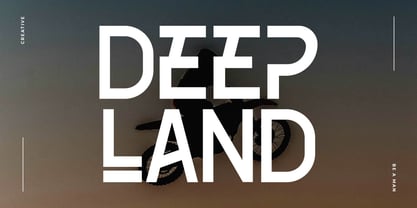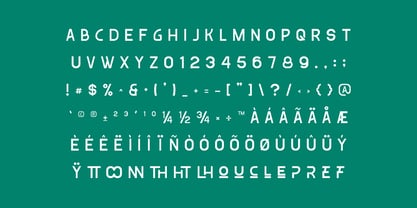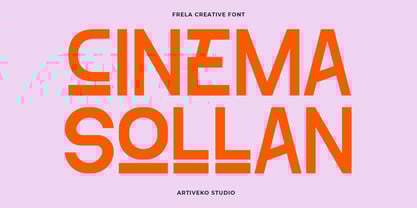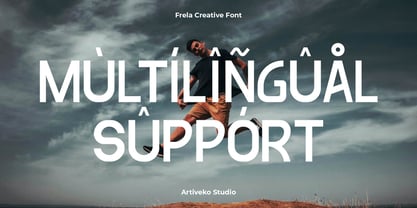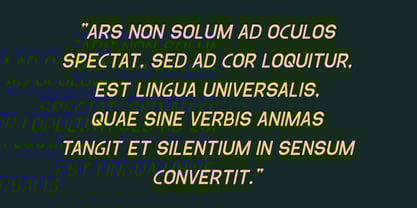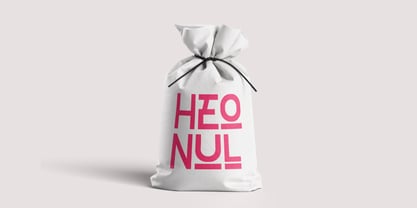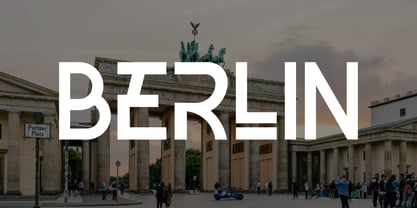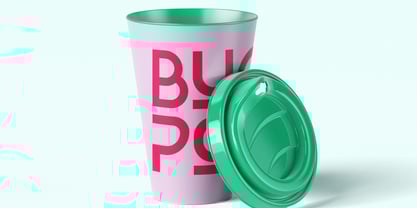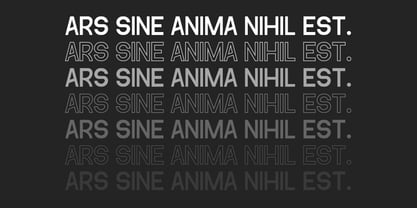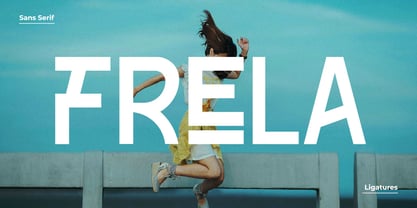
Frela
by Artiveko
The Frela Font Family was designed by Iwan Alwan and published by Artiveko. Frela contains 2 styles and family package options. More about this family
Frela is a creative sans serif font that breaks the mold of traditional minimalism. With playful curves, unexpected angles, and a lively rhythm, Frela adds a spark of originality to every design. It’s clean and modern at its core, yet full of character — making it perfect for branding, editorial design, posters, packaging, and bold visual identities that crave a unique twist.
Frela balances creativity with functionality. It features uppercase and lowercase characters that work beautifully together, along with multilingual support, a variety of stylish ligatures, and alternates that give you full control over your visual voice. Whether you're designing for an innovative startup, an artsy magazine, or a modern product line, Frela stands out without trying too hard. It’s fresh, fun, and fearlessly different — a sans serif that’s not afraid to show a little soul.
Designers: Iwan Alwan
Foundry: Artiveko